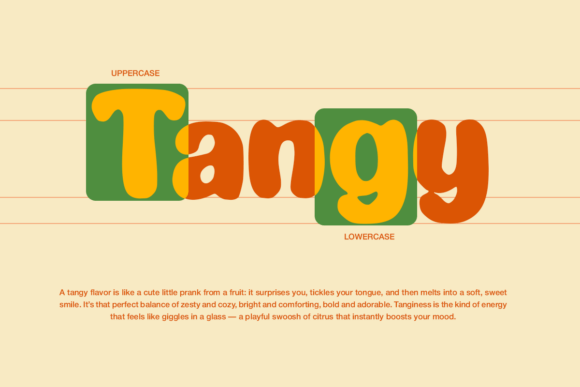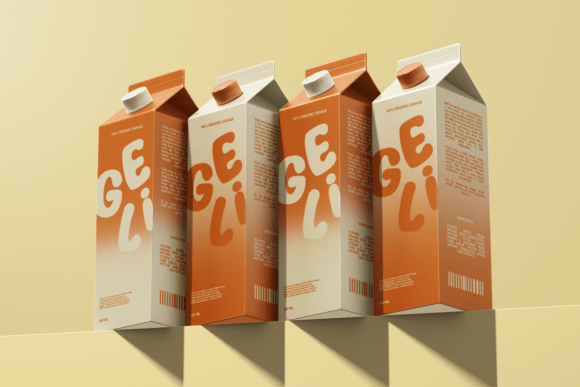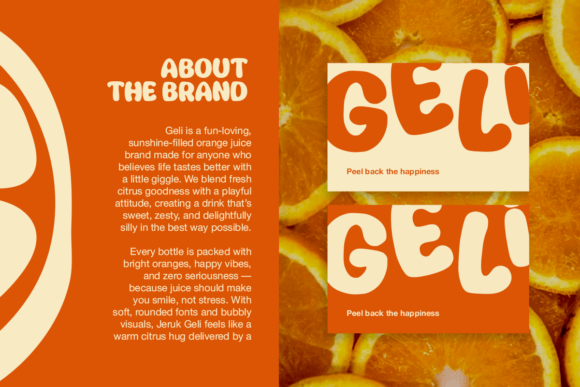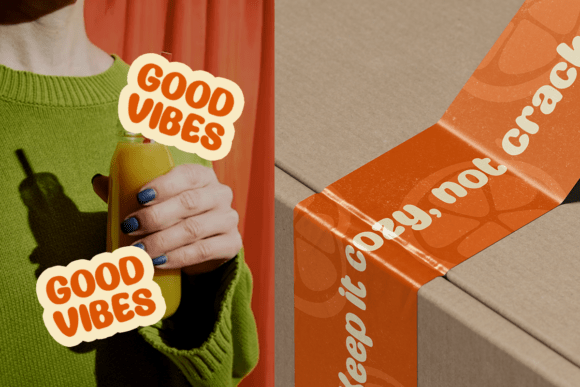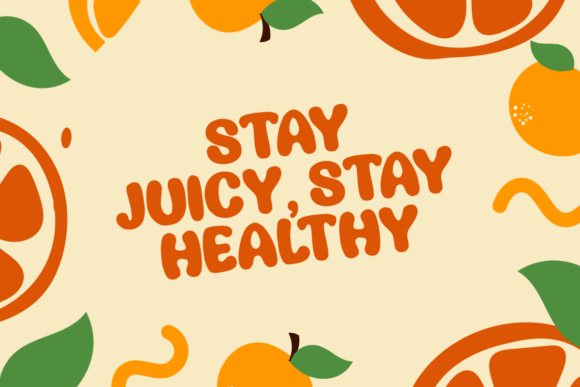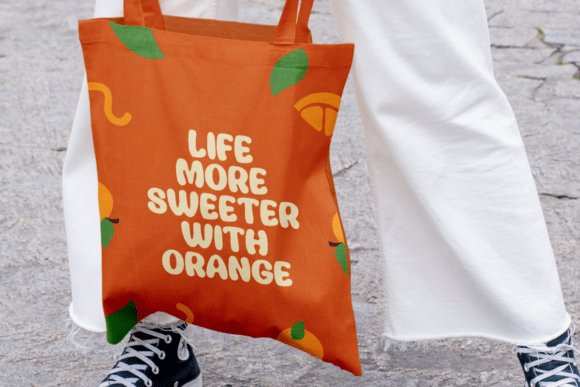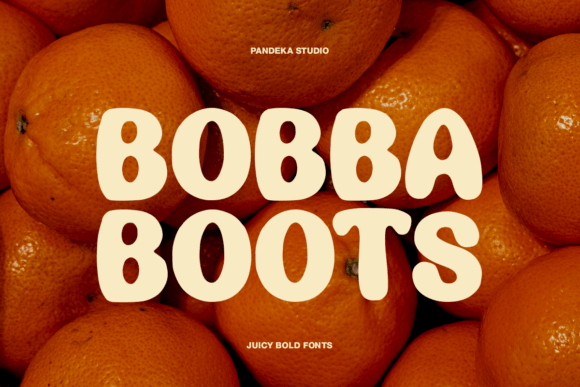
Introducing Bobba Boots Font: The Grooviest Display Typeface of the Century
Step into a world of fun and nostalgia with the Bobba Boots font, a truly groovy and eye-catching display typeface that’s sure to transport you back to the vibrant and carefree aesthetics of the 1970s. This juicy, bold font is defined by its incredibly plump, rounded letterforms, instantly recalling the playful and energetic vibe of a bygone era. Perfect for projects that need to pop and radiate positive energy, the Bobba Boots font is a powerful tool for grabbing attention in a saturated digital landscape.
The Unique Character of Bobba Boots Font
The Bobba Boots font boasts a unique character that’s equal parts playful, fun, and nostalgic. Its bold, rounded letterforms are designed to evoke the carefree spirit of the 1970s, making it an absolute essential for branding food products, juice packaging, candy wraps, or anything requiring a sweet, appetising vibe. The font’s heavyweight and soft curves ensure maximum legibility at large sizes, making it the ideal choice for eye-catching headlines, poster design, and merchandise.
Whether you’re a designer, crafter, or simply someone who loves to get creative, the Bobba Boots font is the perfect addition to your toolkit. Its versatility and distinct personality make it an excellent choice for a wide range of projects, from social media graphics and T-shirt designs to branding and packaging. With the Bobba Boots font, you can elevate your creative projects and give them a unique, retro flair that’s sure to turn heads.
Key Features of Bobba Boots Font
- Bold and Rounded Letterforms: The Bobba Boots font features incredibly plump, rounded letterforms that are sure to grab attention.
- Maximum Legibility: The font’s heavyweight and soft curves ensure maximum legibility at large sizes, making it perfect for headlines, posters, and merchandise.
- Unique Character: The Bobba Boots font has a distinct personality that’s equal parts playful, fun, and nostalgic.
- Versatility: This font is perfect for a wide range of projects, from social media graphics and T-shirt designs to branding and packaging.
Tips for Using Bobba Boots Font
To get the most out of the Bobba Boots font, here are a few tips to keep in mind:
- Use it for Headlines: The Bobba Boots font is perfect for eye-catching headlines and titles that need to grab attention.
- Pair it with Other Fonts: Try pairing the Bobba Boots font with other fonts to create a unique and interesting contrast.
- Experiment with Colors: The Bobba Boots font looks great in a wide range of colors, so don’t be afraid to experiment and find the perfect hue for your project.
In conclusion, the Bobba Boots font is a truly groovy and eye-catching display typeface that’s perfect for designers, crafters, and anyone who loves to get creative. Its unique character, bold and rounded letterforms, and maximum legibility make it an essential tool for grabbing attention and adding a touch of nostalgia to your projects. So why wait? Download the Bobba Boots font today and start creating your own fun and playful designs!
Where to Use Bobba Boots Font
The Bobba Boots font is versatile and can be used in a wide range of projects, including:
- Branding and Packaging: Use the Bobba Boots font to add a touch of fun and nostalgia to your branding and packaging.
- Social Media Graphics: The Bobba Boots font is perfect for social media graphics, including Facebook posts, Instagram stories, and Twitter headers.
- T-Shirt Designs: Create eye-catching T-shirt designs with the Bobba Boots font that’s sure to turn heads.
- Poster Design: Use the Bobba Boots font to create bold and eye-catching posters that grab attention.
Get Ready to Groove with Bobba Boots Font!
In today’s fast-paced digital landscape, it’s easy to get lost in the noise. But with the Bobba Boots font, you can add a touch of fun, nostalgia, and personality to your projects that’s sure to make them stand out. So why wait? Download the Bobba Boots font today and start creating your own groovy designs that are sure to turn heads!